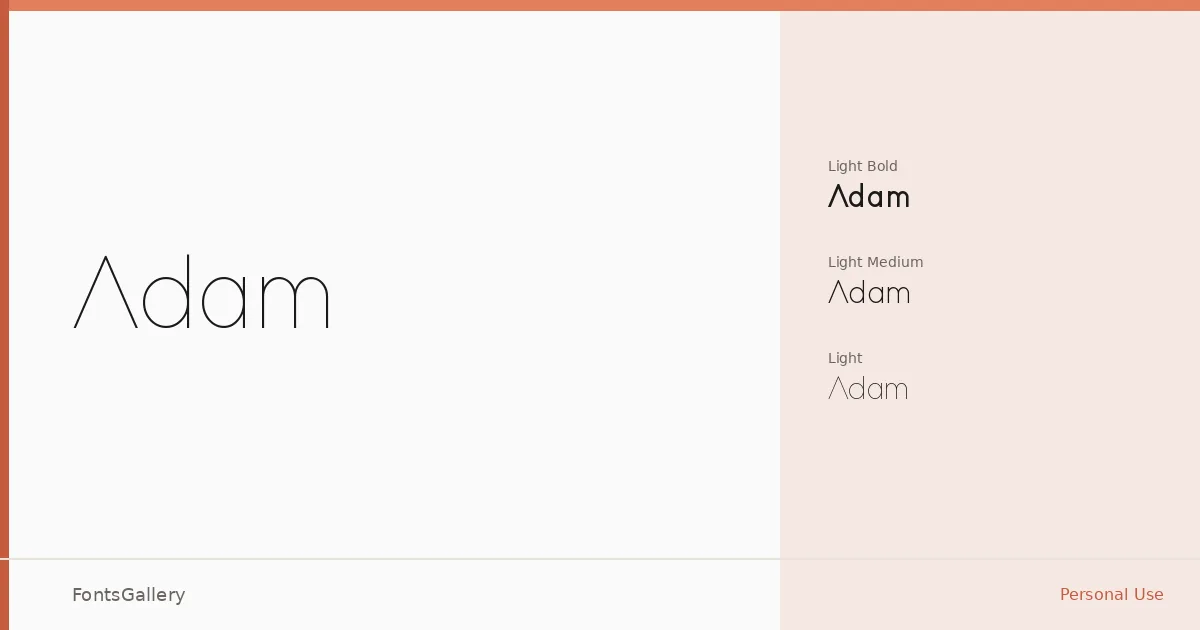
About Adam Font
There is a quiet confidence to these letterforms — the kind of geometric restraint that does not shout but holds attention. Copyright is held by Adam Ericsson. The family arrives in three weights delivered as TTF files: Light, Medium, and Bold, each labeled with its own descriptor to keep your font menu unambiguous.
This is a minimal, modern sans serif built for professional contexts where clean structure matters more than decoration. Moving from the airy Light through the balanced Medium to the decisive Bold, the range gives you enough contrast to establish hierarchy without introducing a different typographic voice at each step. The letterforms read as elegant without being precious — there is nothing fussy in the spacing or the stroke weight transitions.
The three-weight spread works naturally across branding systems, business cards, logo lockups, magazine layouts, and website headers — essentially anywhere a professional, minimal tone is the brief. When you need to introduce a secondary voice, the family has been paired with Canela, Armelie, 321 Impact, AQUA, and Kactigona, each offering a different kind of contrast depending on how much warmth or weight you want alongside it.